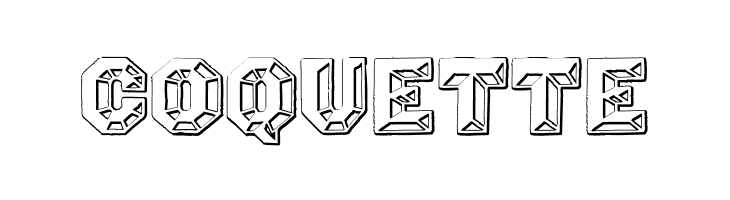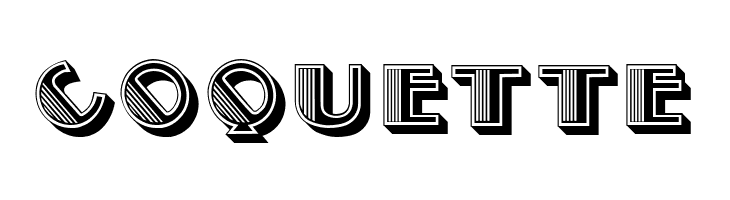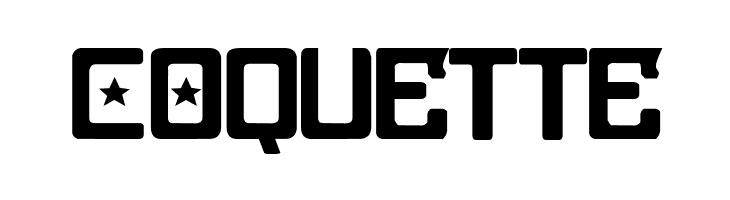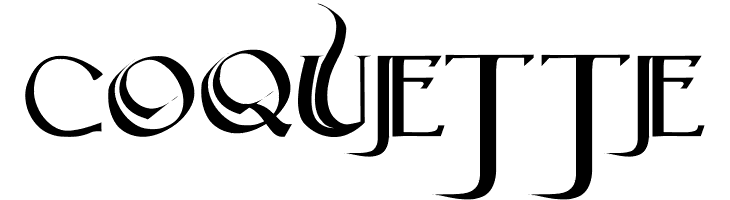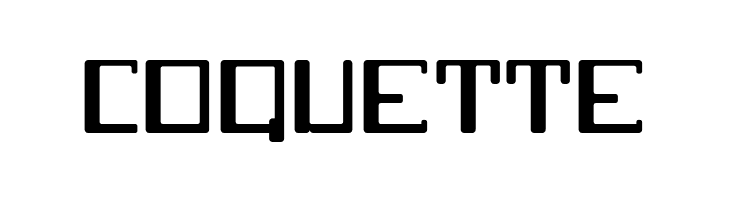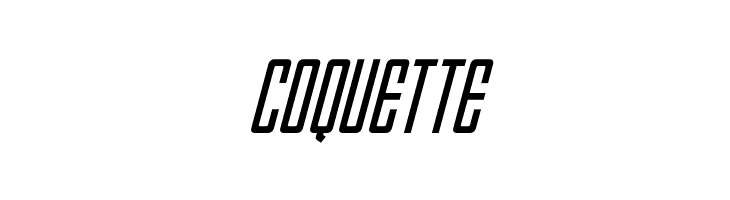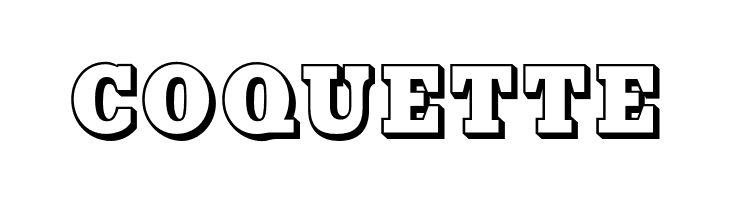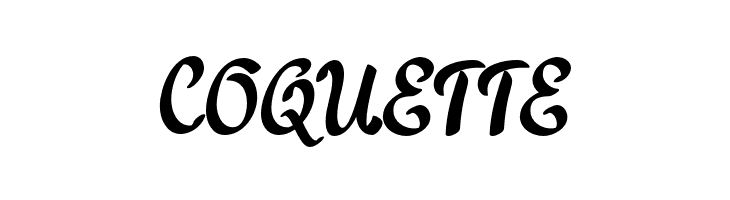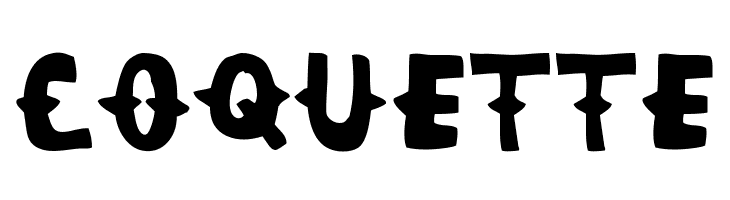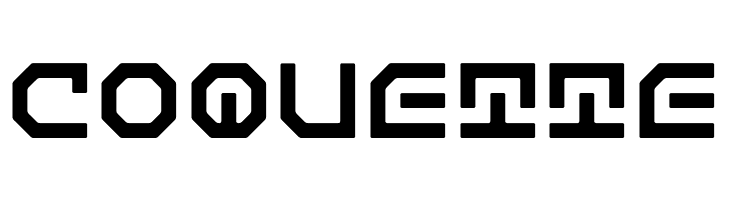
A decorative font with intricate serifs and high contrast, blending modern and vintage styles.
A modern, geometric font with rounded edges and consistent stroke width.
A geometric, modern font with clean lines and uniform stroke width.
A geometric, modern font with thin, elongated letterforms and a minimalist style.
A dynamic, oblique font with tall, narrow characters and a modern style.
A bold, condensed, and geometric font with a modern aesthetic.
An artistic and decorative font with elaborate, angular designs.
Bold, outlined font with a three-dimensional effect.
A playful, handwritten-style font with tall, narrow characters and a casual feel.
A playful, handwritten-style font with tall, narrow characters and uneven strokes.
A bold, geometric font with a futuristic and digital aesthetic.
A bold, geometric font with a three-dimensional, prismatic design.
A bold, decorative font with a 3D layered effect and geometric shapes.